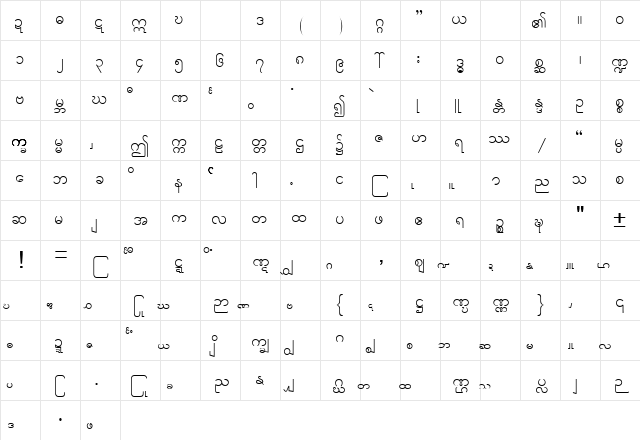
Code1 Regular
Design Context for Code1 Typeface
Code1 brings the precise, column-aligned rhythm of monospaced typography to designs that value technical clarity and systematic order.
Well-suited to data-driven dashboards, coding tutorials, and any design that wants to reference the world of programming.
Pro Tip: Use Code1 with slightly increased line-height for extended reading — fixed-width spacing can feel dense in longer passages without extra breathing room.